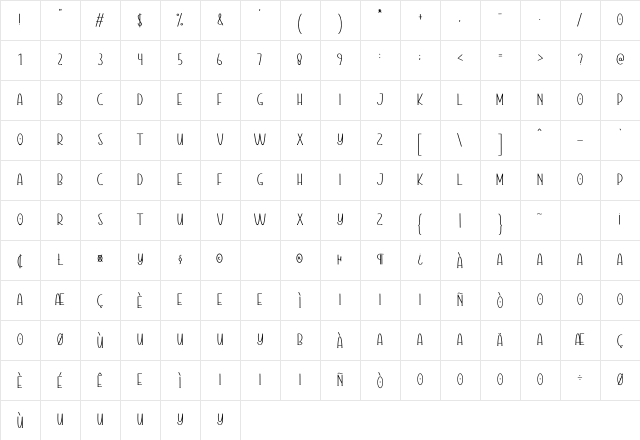
ROBOT REMOTE Regular
Design Context for ROBOT REMOTE
ROBOT REMOTE is a composed and adaptable typeface that performs quietly and consistently across a wide range of design contexts.